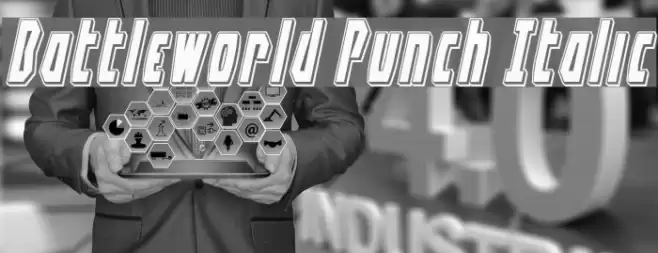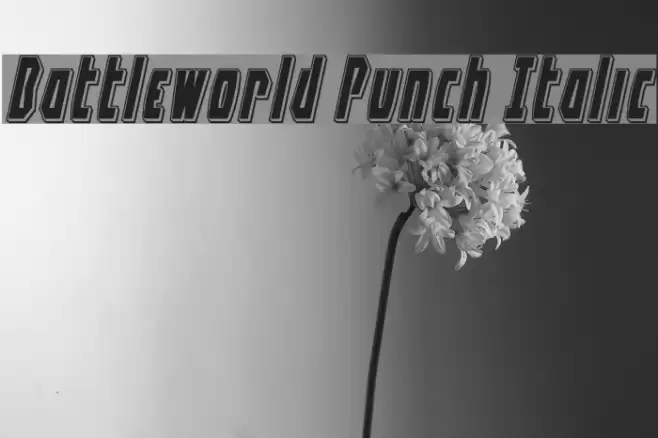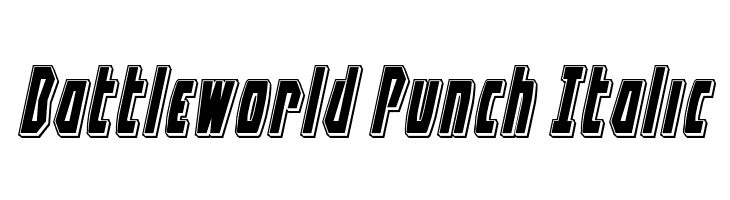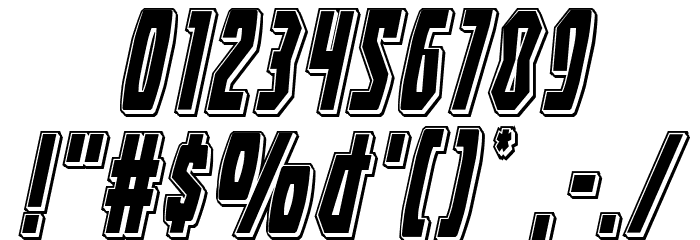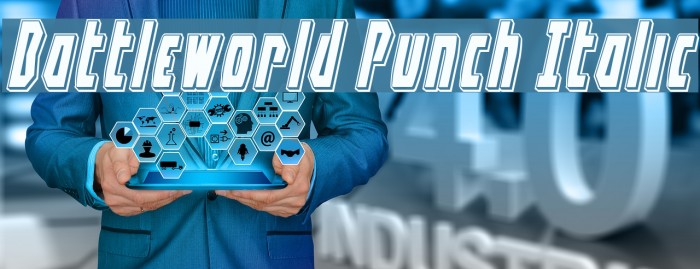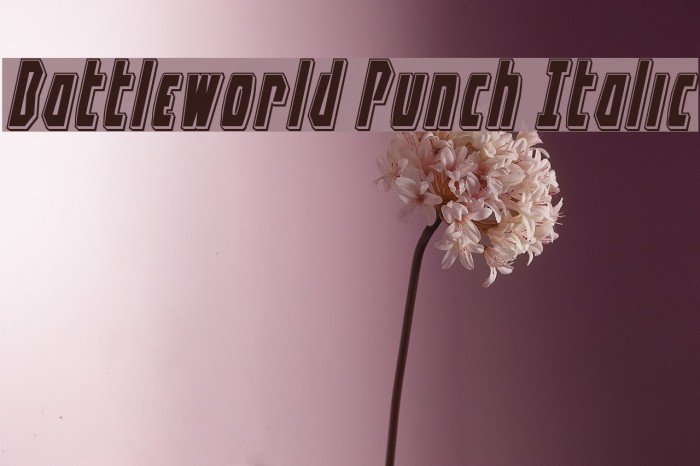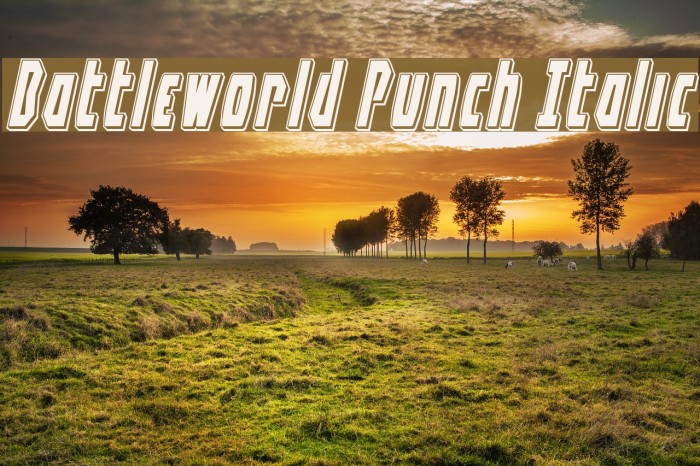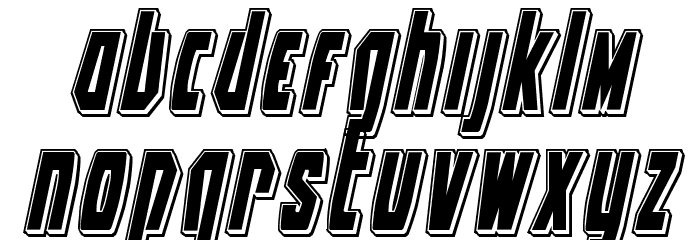
Battleworld Punch Italic Font
Battleworld Punch Italic Description
This font features a bold and dynamic style with a strong italic slant, giving it a sense of movement and energy. The characters are outlined with a thick border, enhancing their visibility and impact. The uppercase and lowercase letters maintain a consistent design, with sharp angles and a slightly condensed form. Numbers and special characters follow the same bold and italicized style, ensuring uniformity across all glyphs. This font's unique design makes it stand out, suitable for projects that require a strong visual presence.
A bold, italicized font with a dynamic and energetic style from Sci-fi fonts.
- Proposed Projects: Ideal for sports branding, action-themed posters, video game titles, and dynamic advertising campaigns.